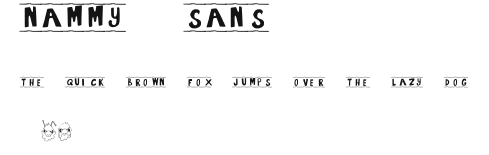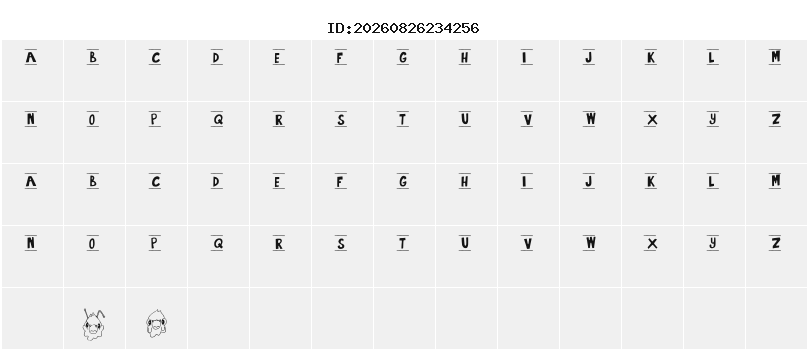
Nammy Sans Preview
• Font Name: Nammy Sans
• Full Font Name: NammySans
About Nammy Sans.otf
Nammy Sans.otf is a modern, elegant sans-serif font designed for ultimate readability and visual harmony. Perfect for branding, headlines, web design, and print materials.